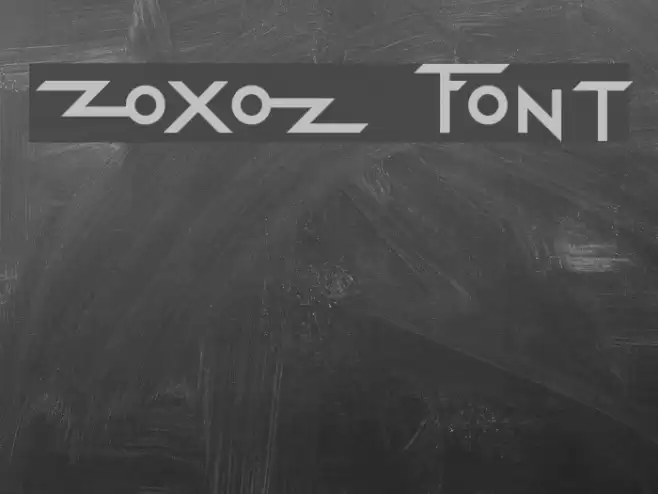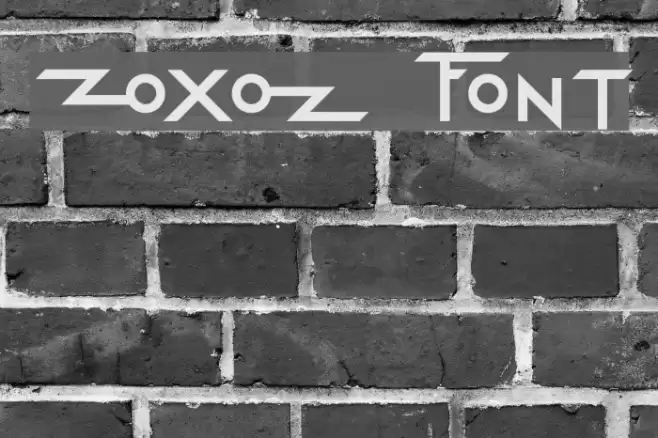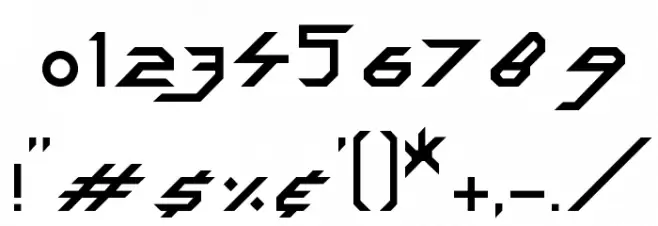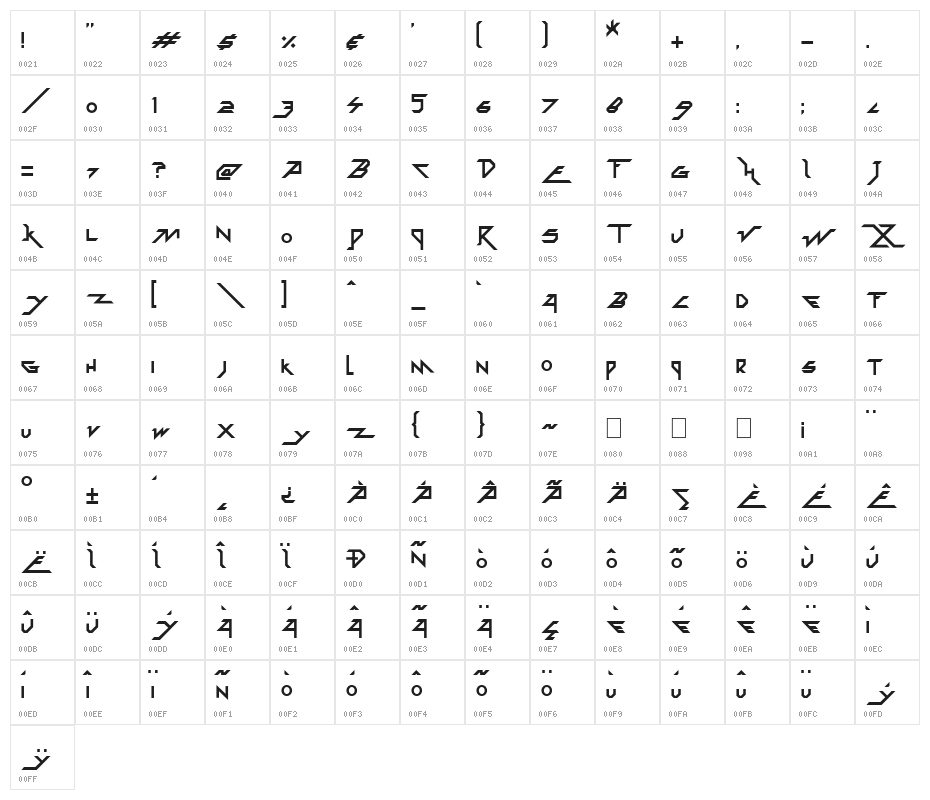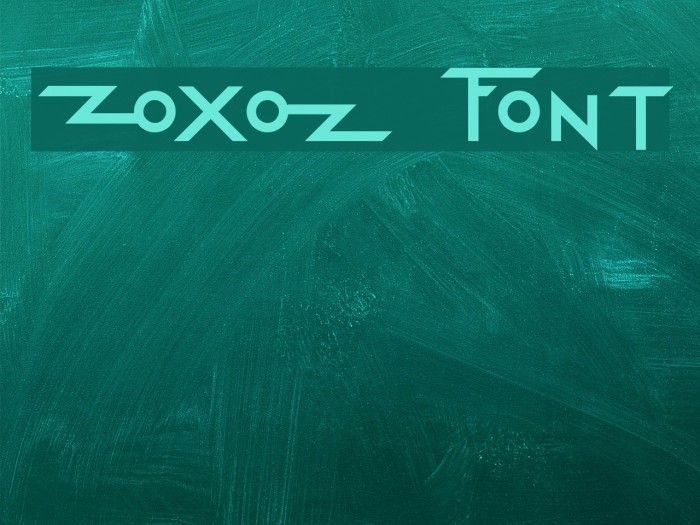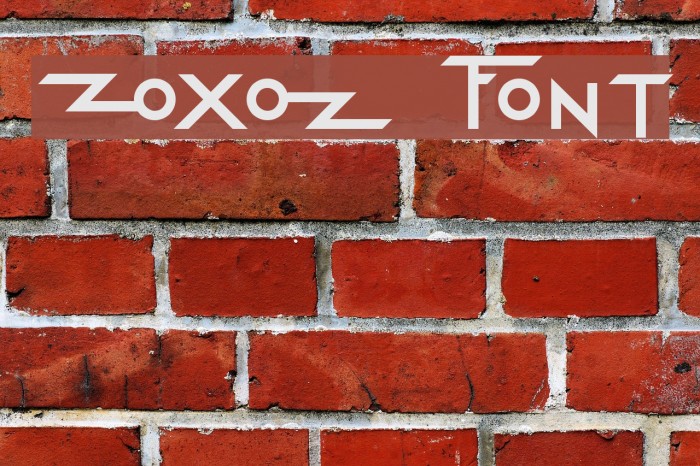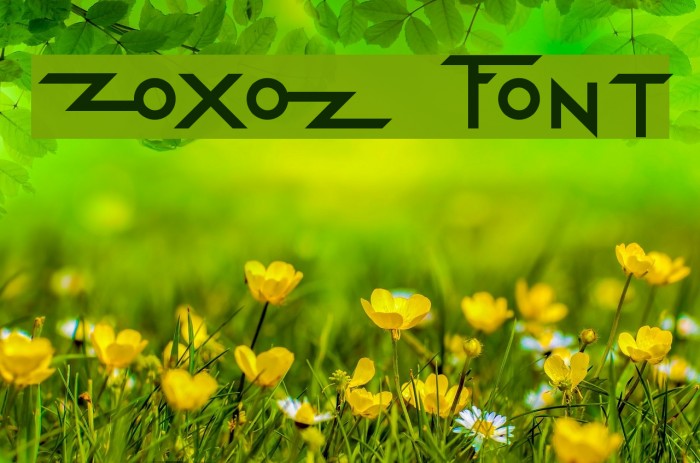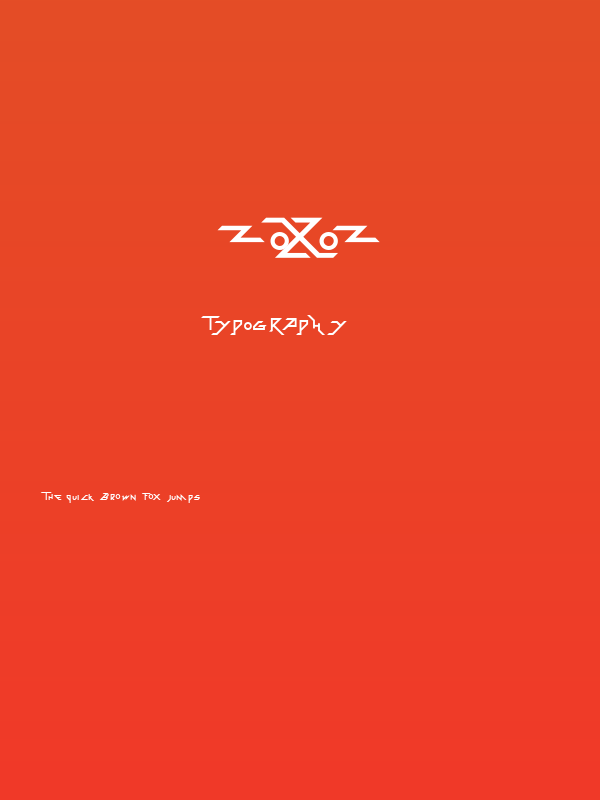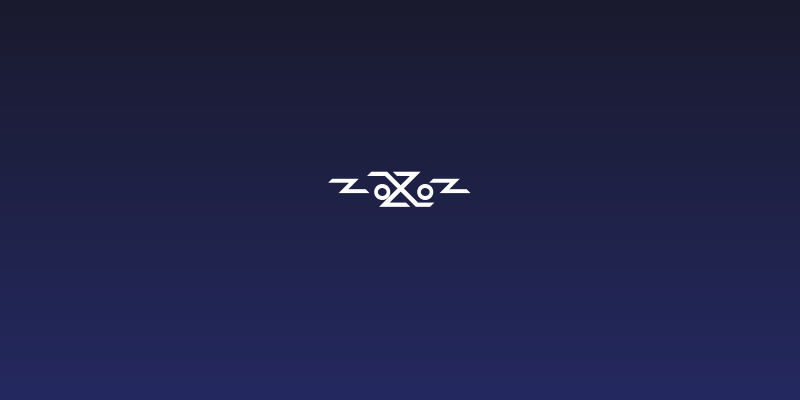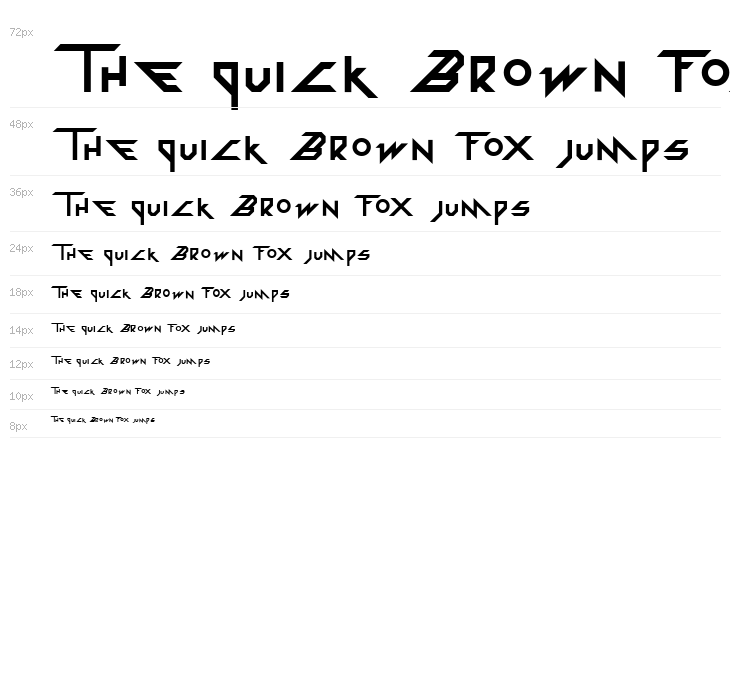
Zoxoz Font
Zoxoz Description
This font features a bold, angular design with sharp edges and geometric forms. The characters are constructed with a futuristic aesthetic, emphasizing diagonal lines and pointed corners. The uppercase and lowercase letters maintain a consistent style, with a distinct, edgy appearance. Numbers and special characters follow the same angular theme, creating a cohesive look across all glyphs. The font's unique style makes it stand out, ideal for projects that require a modern and unconventional typeface.
A bold, angular font with a futuristic and edgy design from Uncategorized fonts.
- Proposed Projects: Ideal for sci-fi themed designs, video game graphics, posters, and branding that requires a modern, edgy look.
- Overall Style: Futuristic